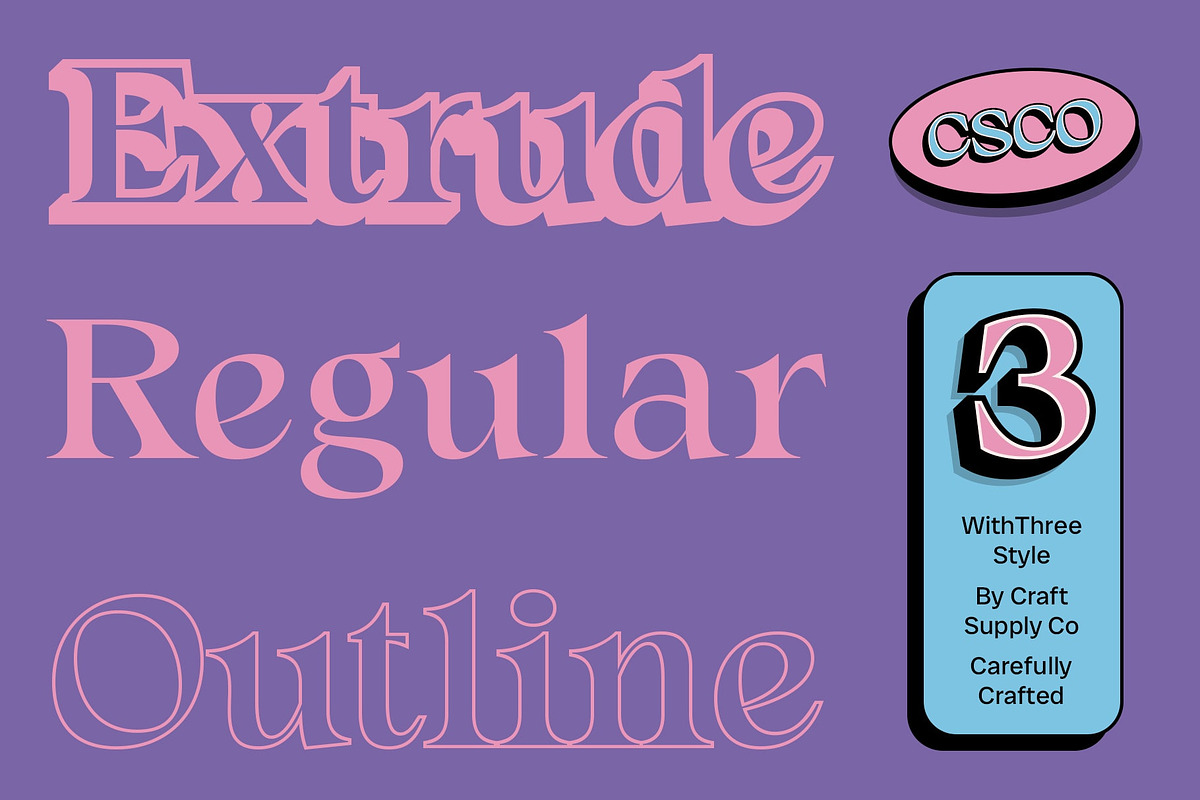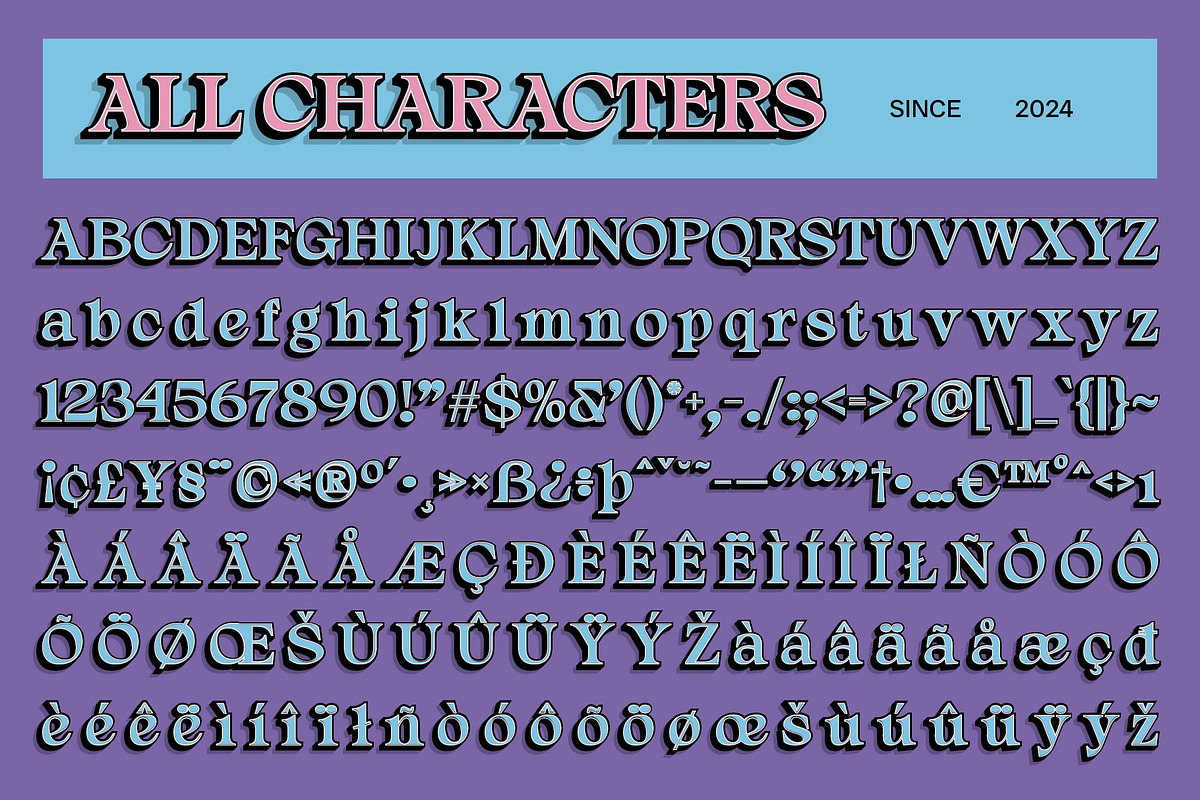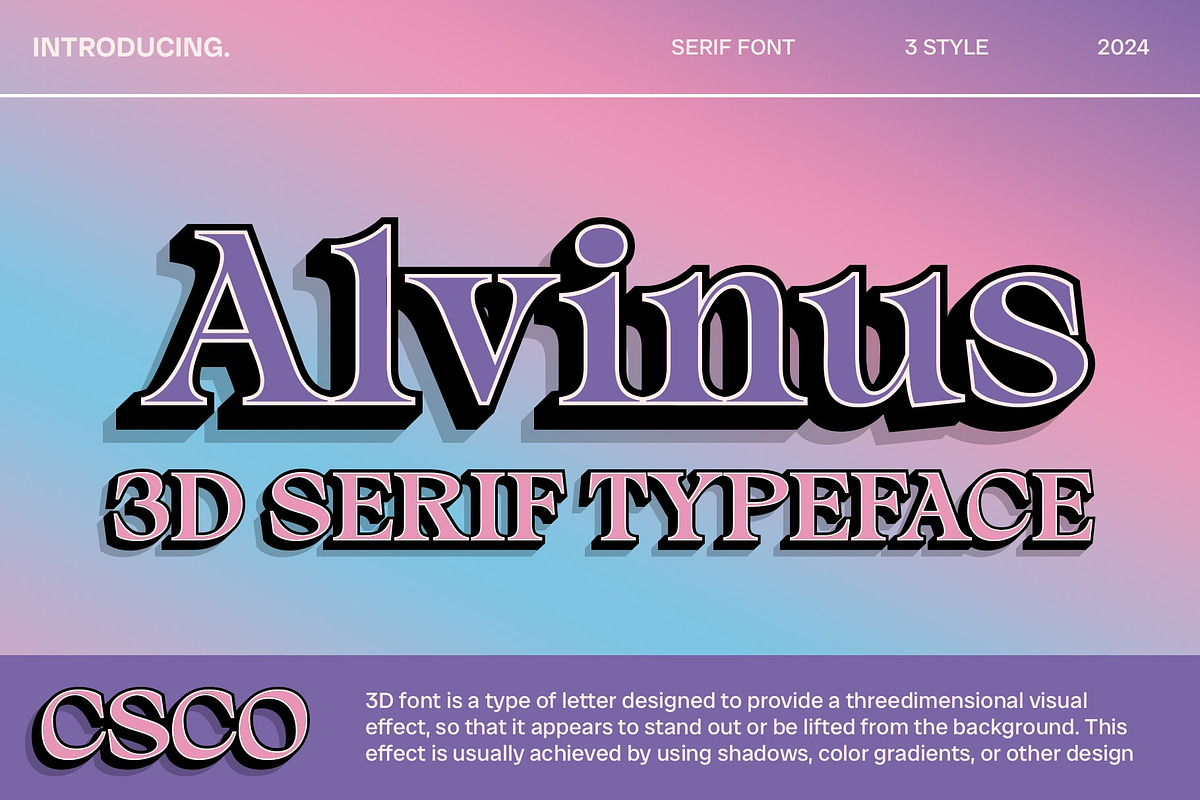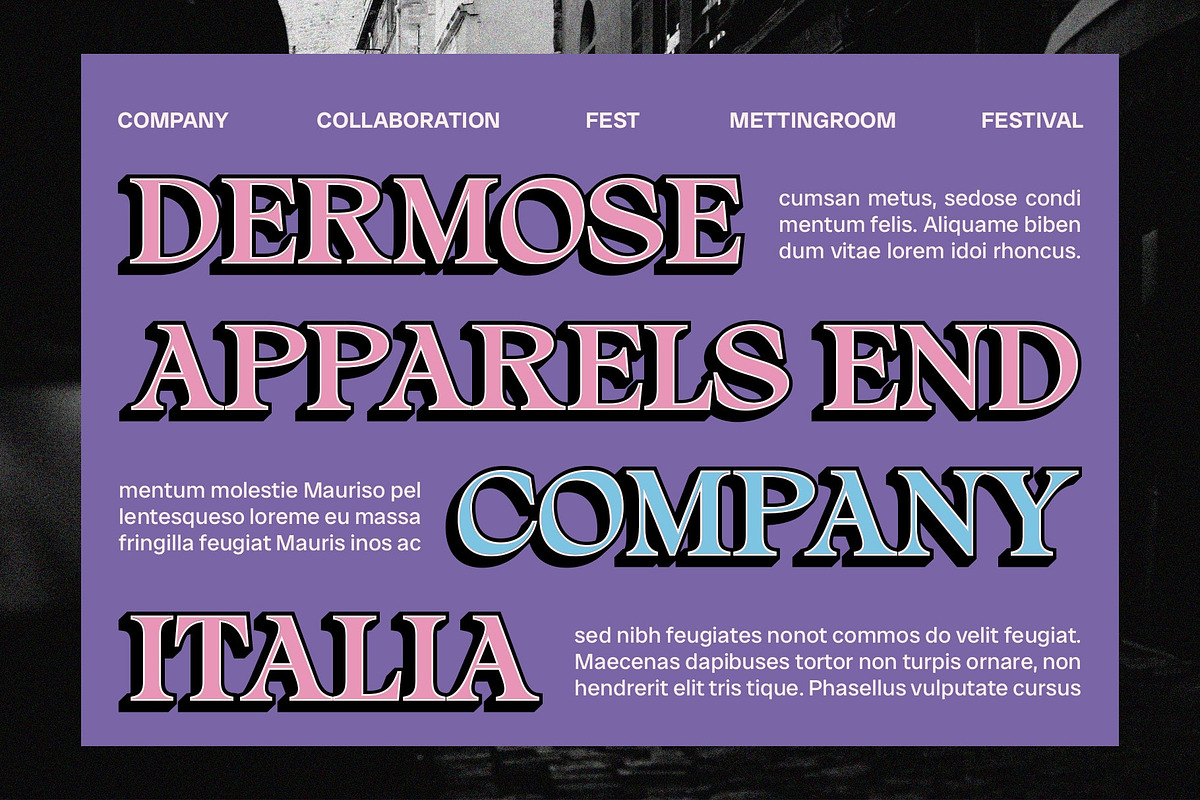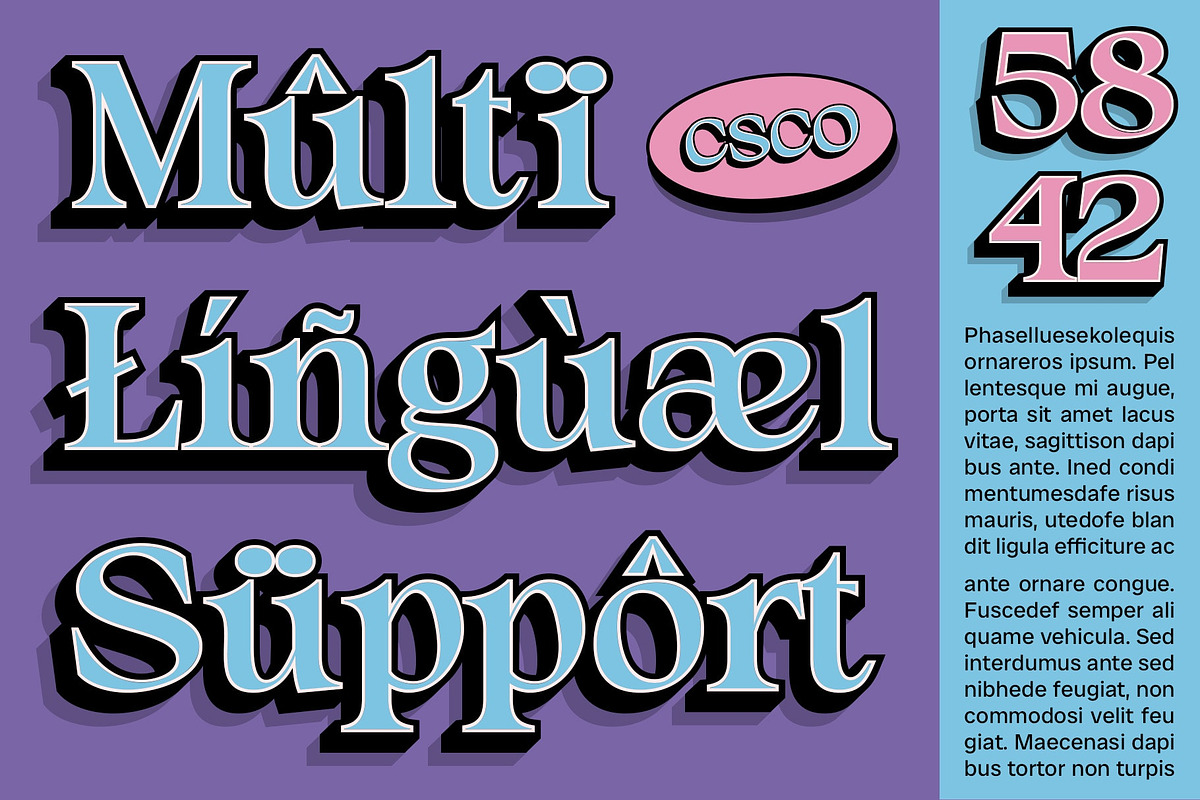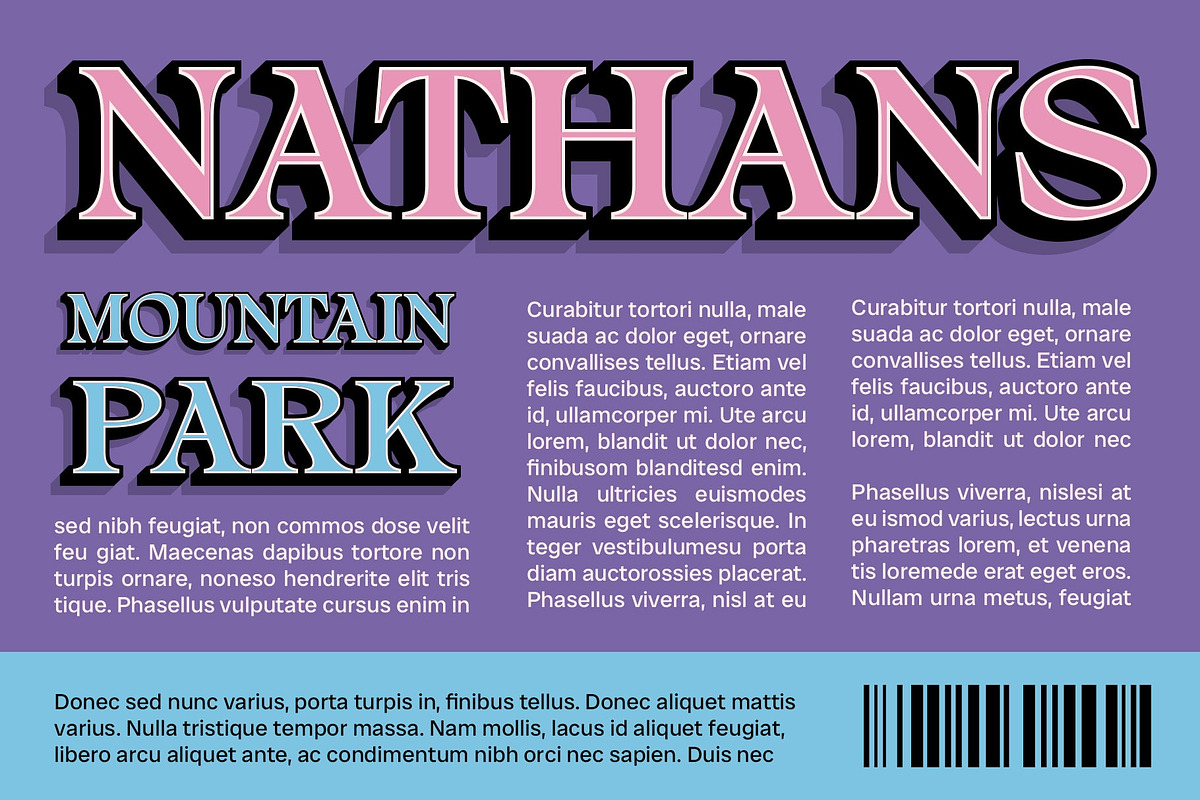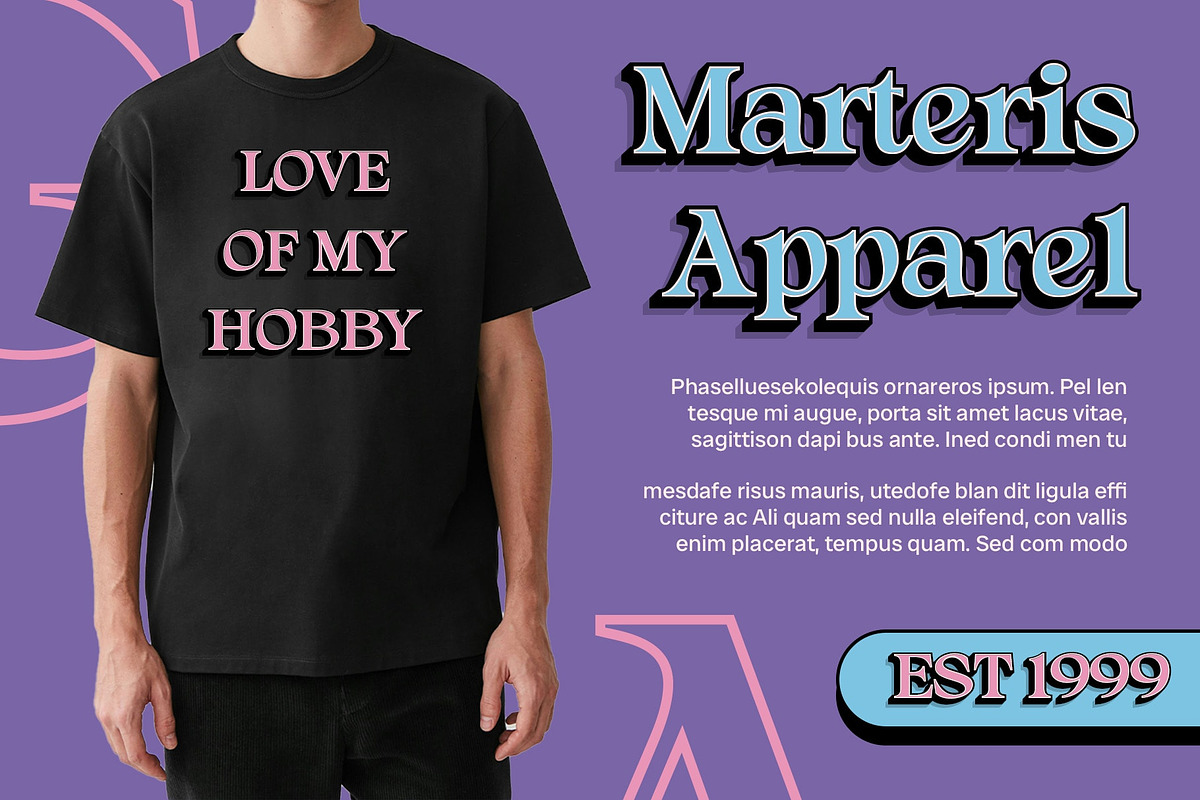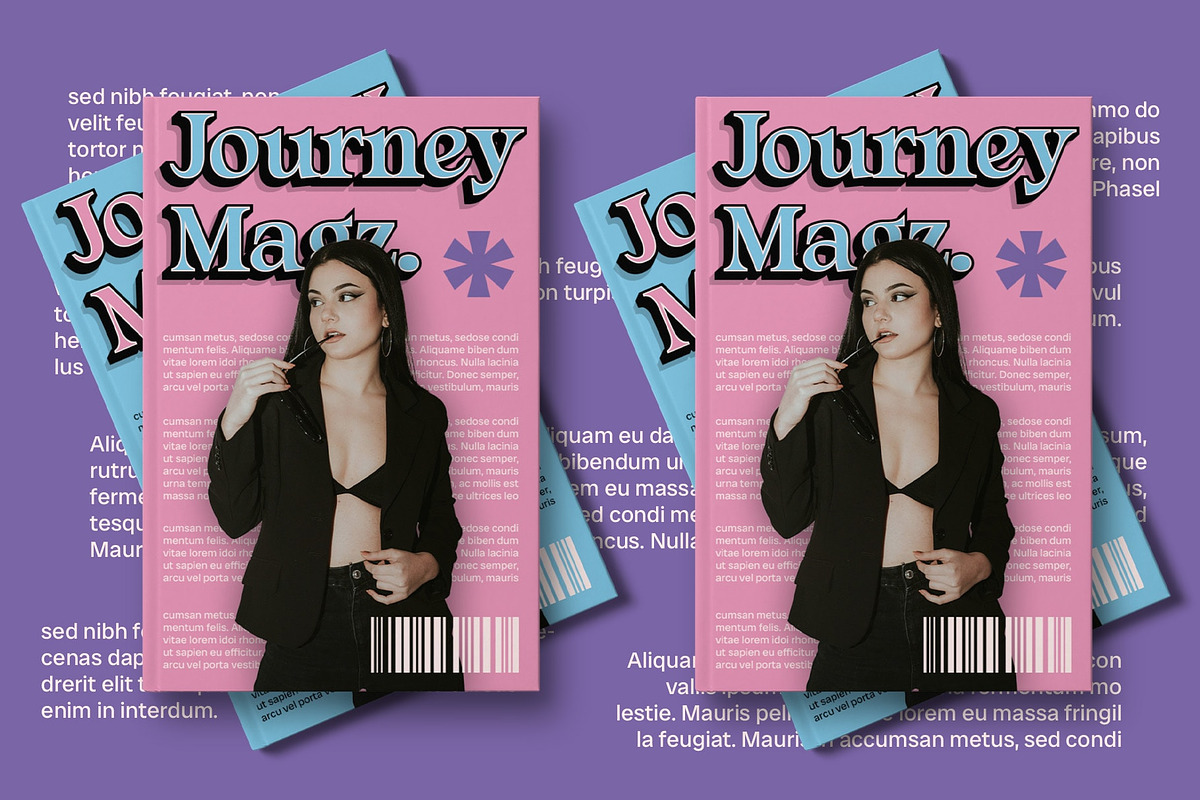
Alvinus 3D
Alvinus 3D: Adding Dimension to Elegance
Introduction Alvinus 3D is a modern serif font that combines elegance with a contemporary twist. Featuring a 3D effect, this font adds depth and dimension to your design, giving it a modern and sophisticated look.
Elegant Serif Design Alvinus 3D features a classic serif design with a modern flair. The elegant serifs add a touch of sophistication, while the 3D effect adds a contemporary twist, making it suitable for a wide range of design projects.
Contemporary Touch with 3D Effect The 3D effect in Alvinus 3D adds an extra layer of depth and dimension to the font. This effect gives your text a modern and dynamic appearance, making it ideal for designs that aim to stand out.
Perfect for Modern Designs Alvinus 3D is perfect for modern designs that require a blend of elegance and contemporary style. Whether you’re designing a logo, a poster, or a website, this font can help you achieve a stylish and sophisticated look.
Enhance Your Designs with Alvinus 3D With its elegant serif design and 3D effect, Alvinus 3D can add a touch of sophistication to any design. Whether you’re creating a branding project or a publication, this font can help you create a stunning and memorable design.
- Alvinus Regular
- Alvinus Outline
- Alvinus Extrude Right
- Alvinus Extrude Left